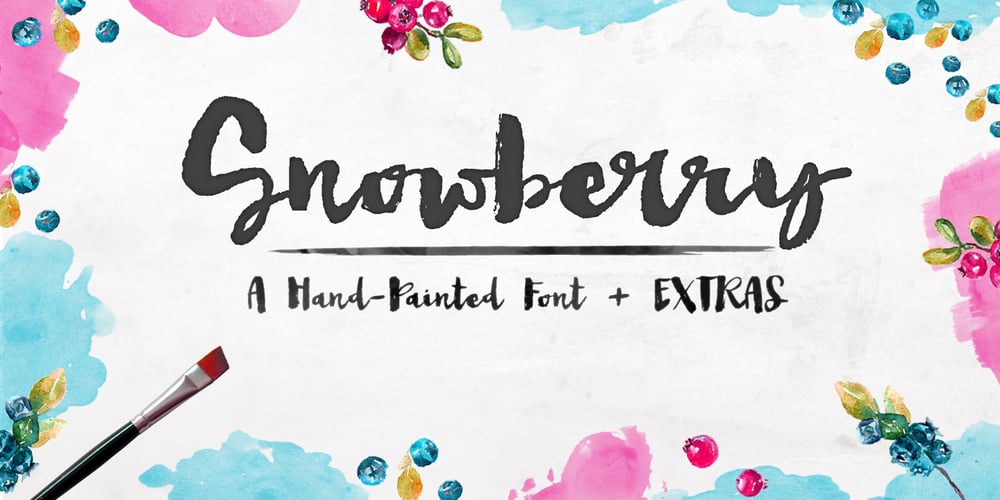
Snowberry
Snowberry font
Snowberry Font Family was designed by Angie Baldelomar and published by Angie Makes. Snowberry contains 4 styles and family package options. Meet Snowberry… A modern, hand-painted brushed font family for projects needing that effortless, yet convincingly hand-painted feel. Snowberry has two sets of uppercase letterforms and two varied personalities. Use the Snowberry Destroyed font to add edge, texture, and a dry brushed look to your various letterforms. Use the Regular Snowberry for a smooth, wet, painted brushed look. BUT WAIT… that’s not all. Included is a third ornament font with swirls, swashes, paint splatters, catchwords, and ampersands so you messy brush lettering fanatics (You know who you are) can eat your heart out. An image guide to use these ornaments is also included. Files Included: Snowberry.otf (Smooth Version) Snowberry Destroyed.otf (Dry Brushed, Textured Version) Snowberry Ornaments.otf (Paint Splatters, Curly-Q’s, etc) Font Guide Image for Ornaments Watercolor effects used in some of the demo images are here.